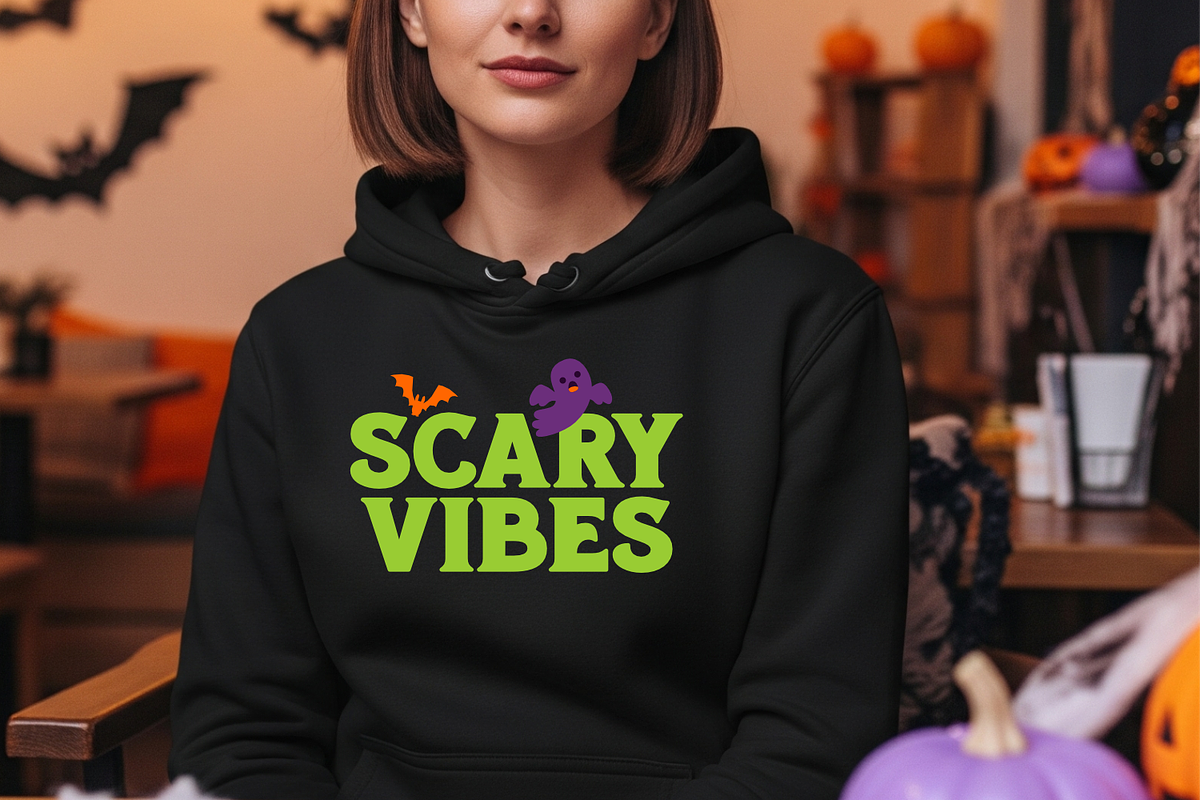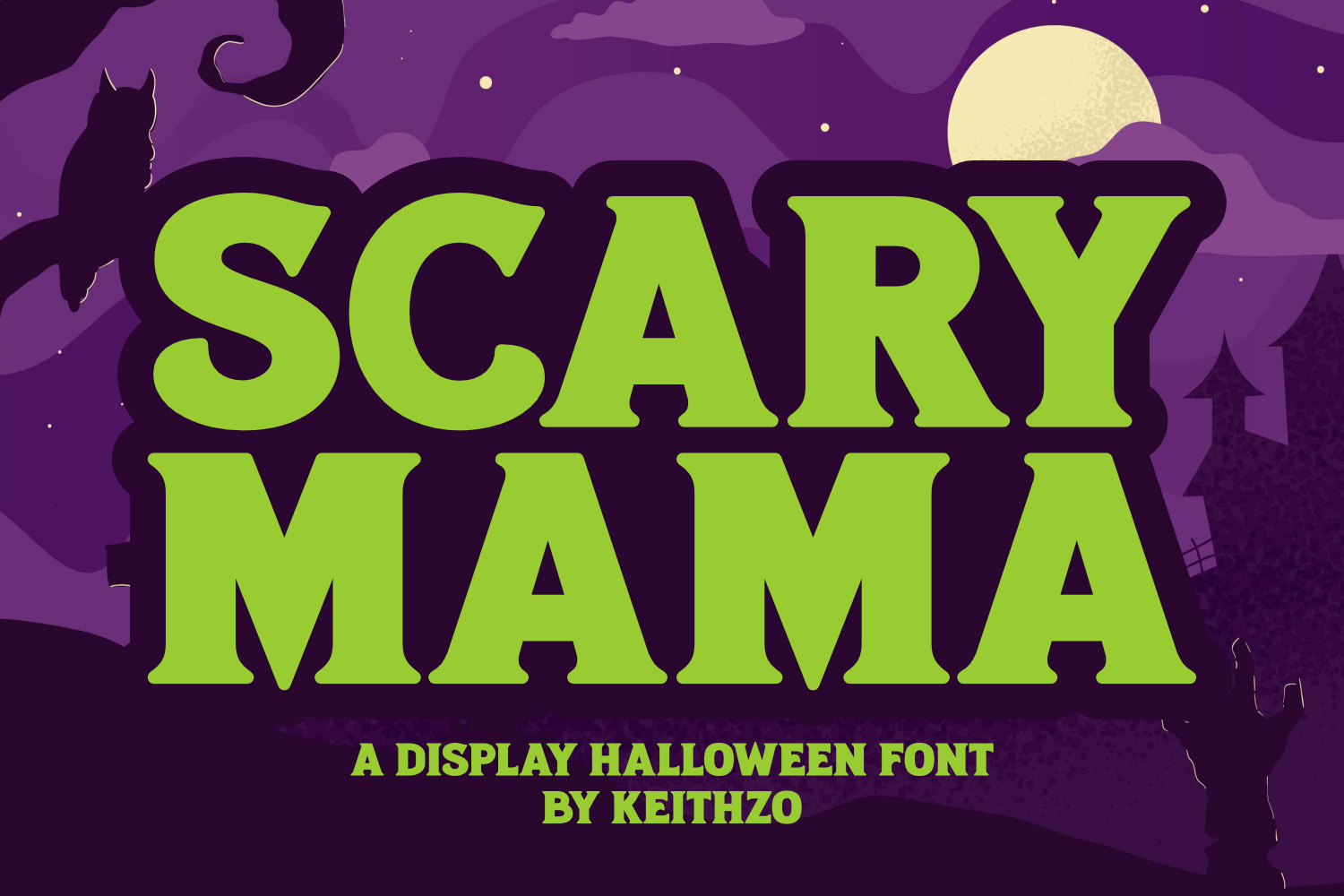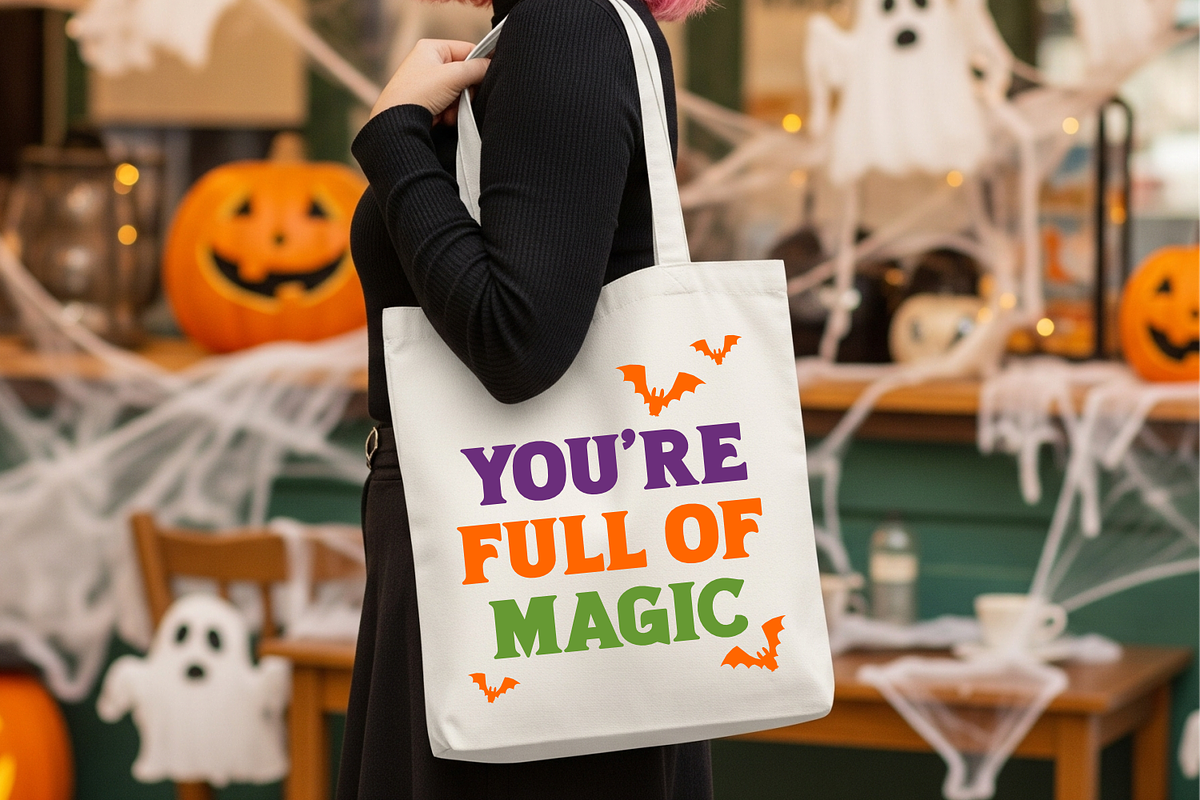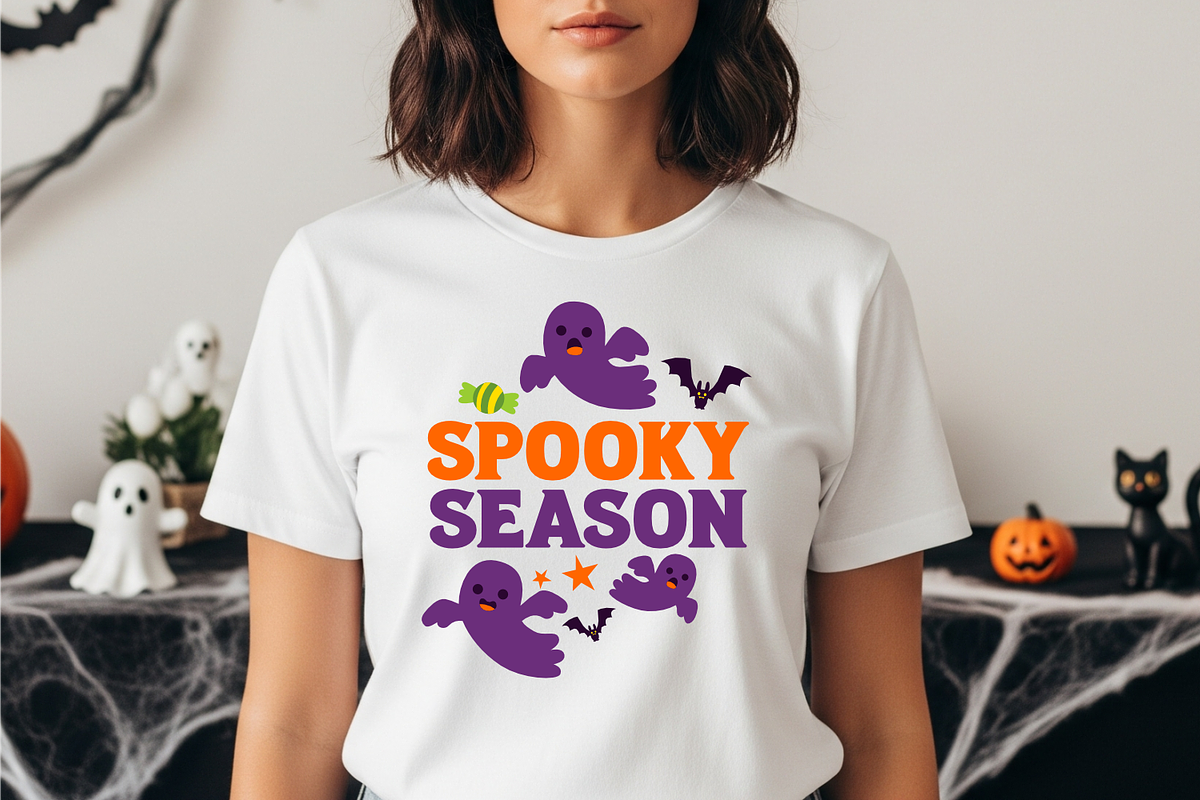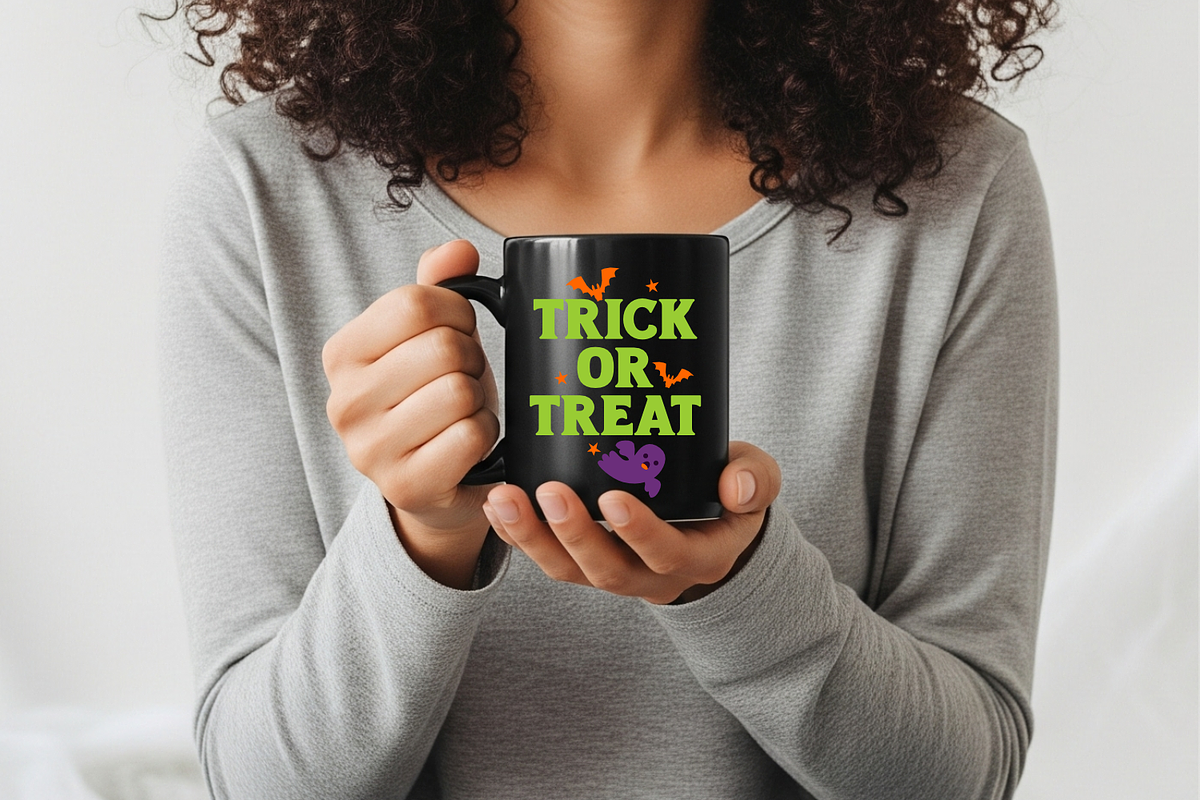
Scary Mama - Halloween Font
Introducing Scary Mama – a display serif font meticulously crafted for Halloween-inspired creations. This extraordinary typeface boasts a captivating charm that dramatically enhances designs for t-shirts, posters, mugs, tumblers, hoodies, or advertisements. Impeccably suited to Halloween cards, Scary Mama effortlessly infuses a thrilling and spooky essence into your creations. Make a mesmerizing impact as you breathe life into your designs with the eerily enchanting Scary Mama font.